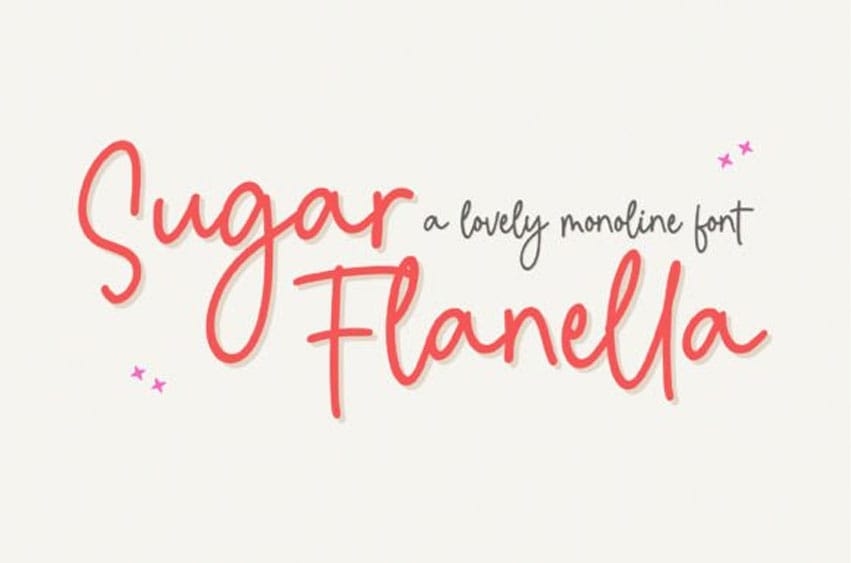
Sugar Flanella Font is a lovely monoline script font that can be used for all chalkboard quotes or teaching material!
Its authentic look will add a personal and realistic feel to your designs.